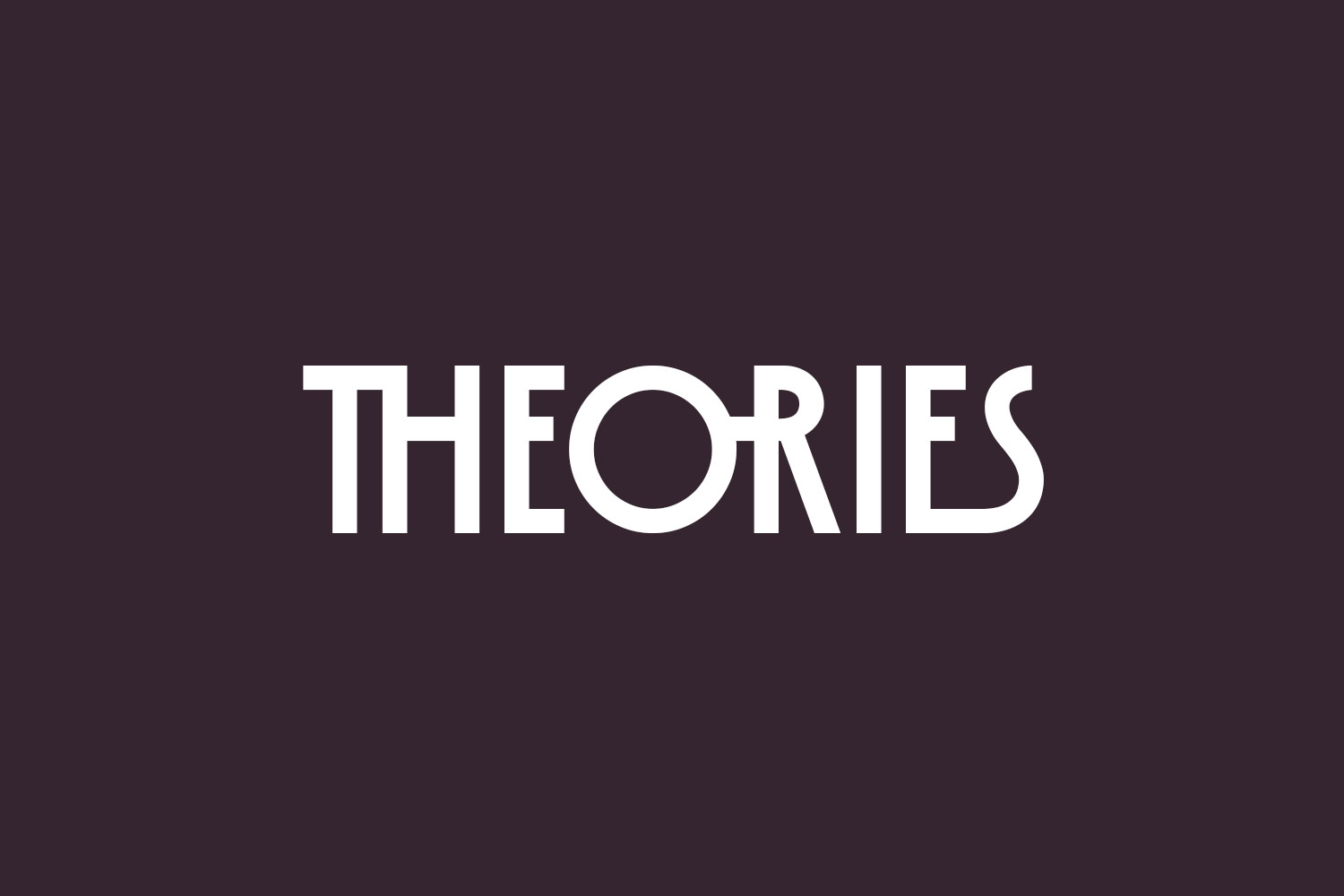
Theories Free Font s a modern sans serif font. It is PUA encoded which means you can access all glyphs and swashes with ease. Add it confidently to your favorite creations and let yourself be amazed by the outcome generated. Theories Free Font was designed by 177Studio and is free for personal use only. Please purchase the full version for commercial use.